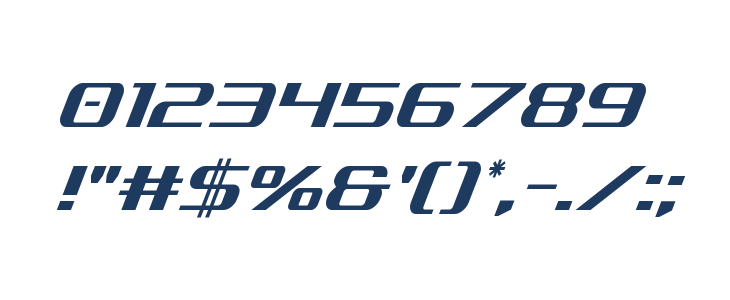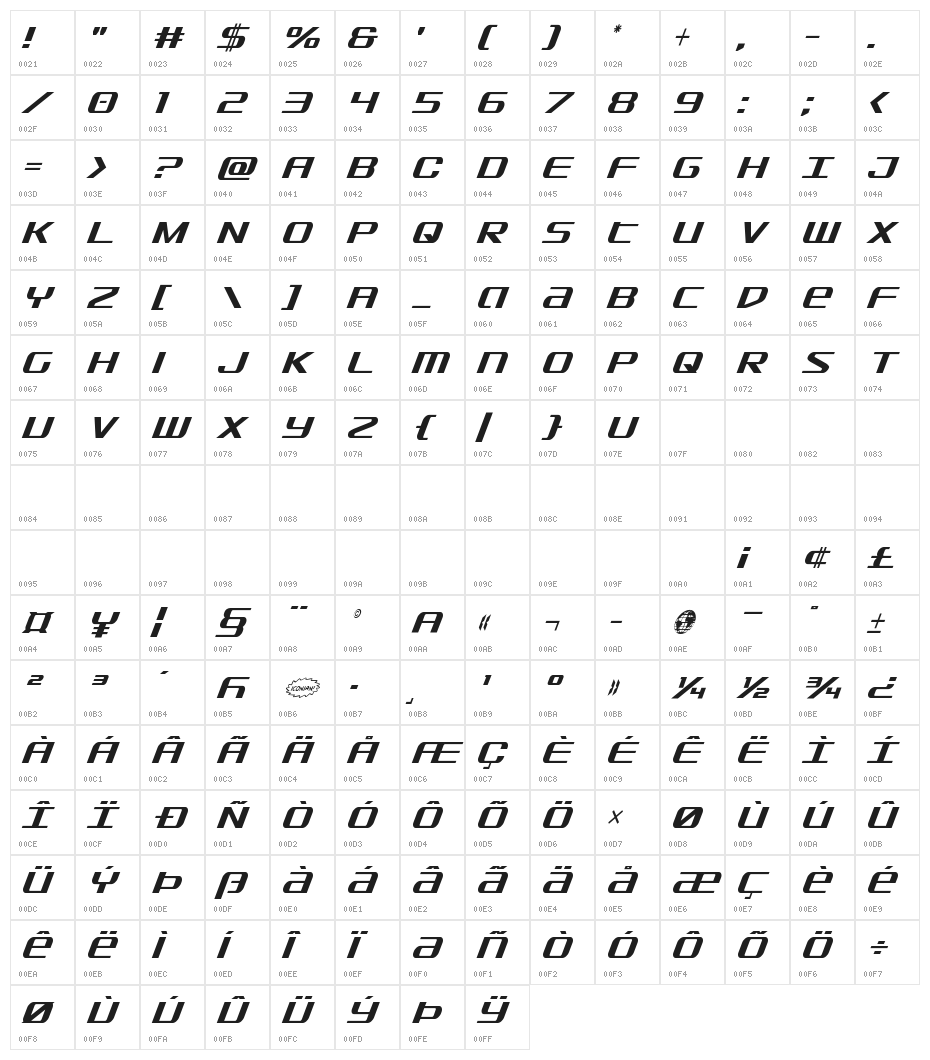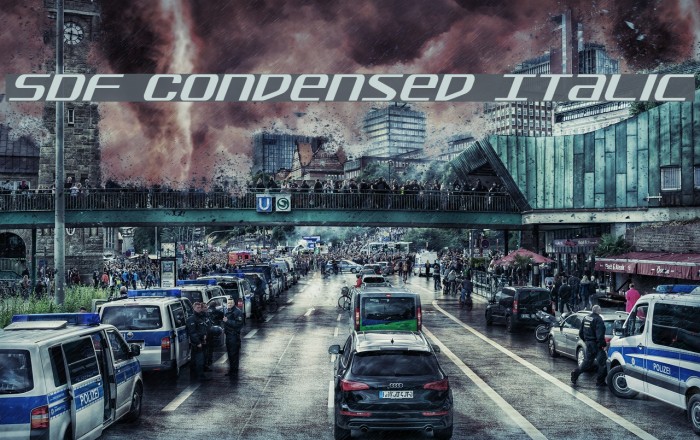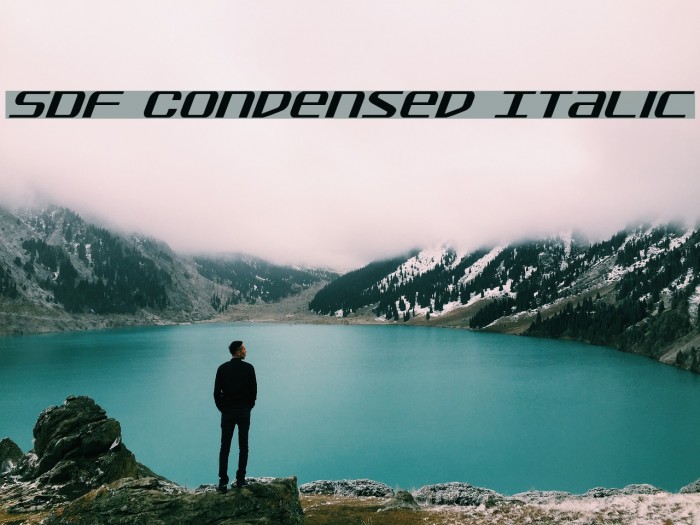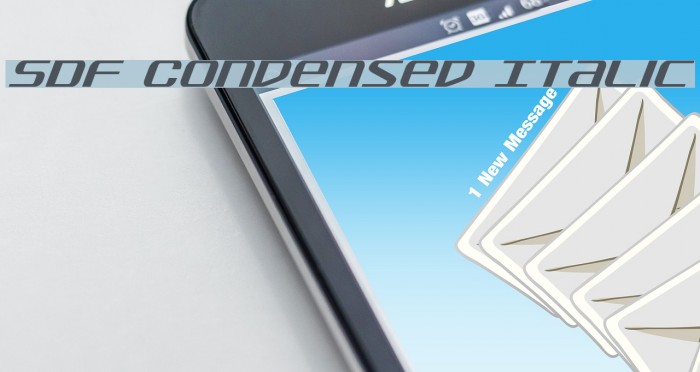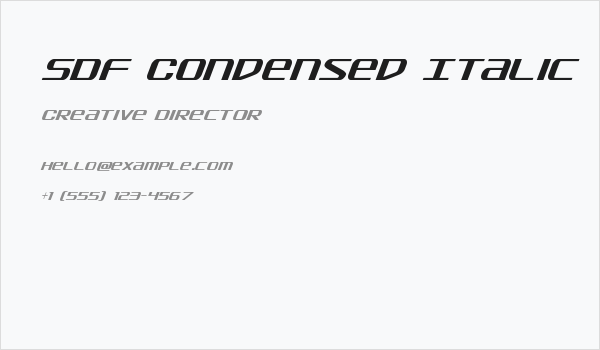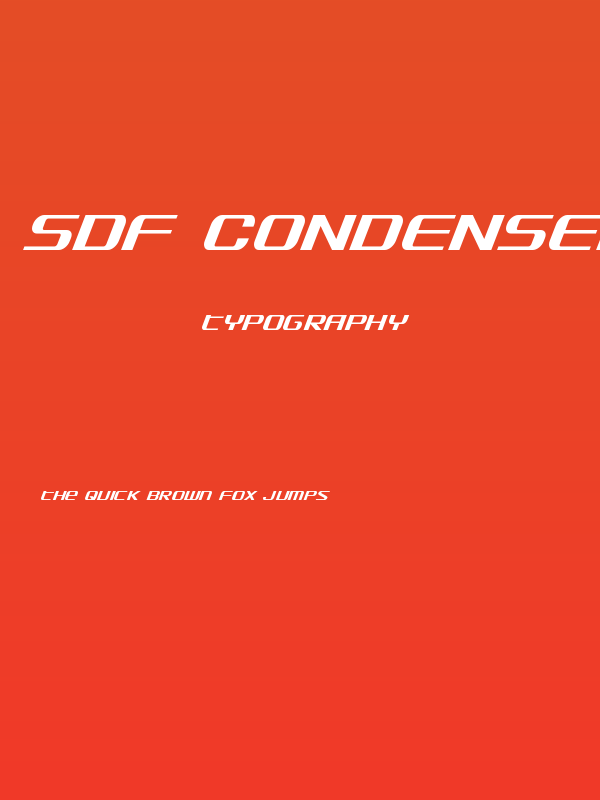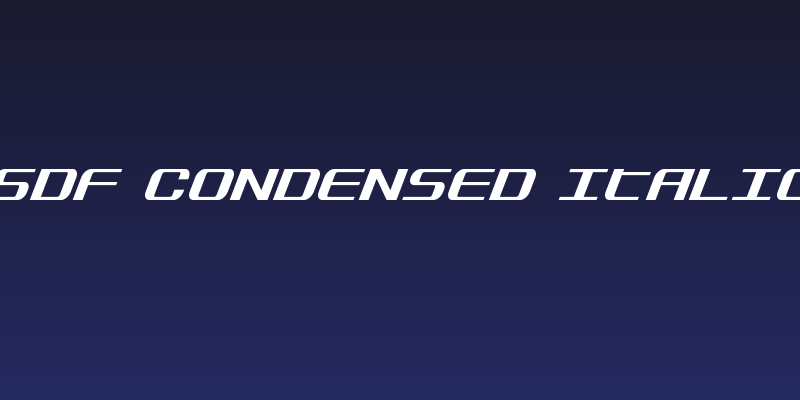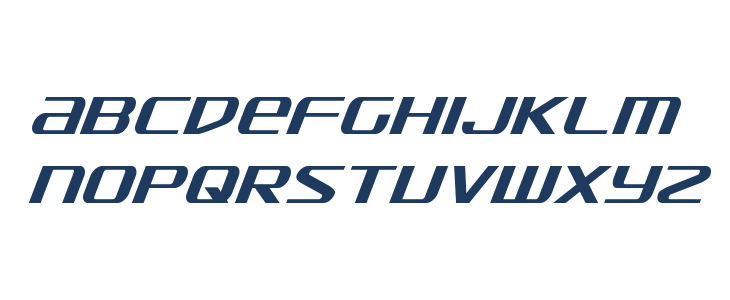
SDF Condensed Italic Font
SDF Condensed Italic Description
This font features a sleek, modern design with a condensed and italicized style. The characters are sharply angled, giving a sense of motion and speed. The uppercase and lowercase letters maintain a consistent slant, enhancing the dynamic appearance. The numerals are distinct and align well with the overall aesthetic, while the special characters complement the set with a similar angular design. The font's condensed nature allows for efficient use of space, making it suitable for various design applications.
| Use Case | Logos, Headlines, Branding |
| Proposed Projects | Ideal for branding, sports team logos, automotive designs, and modern advertising campaigns. |